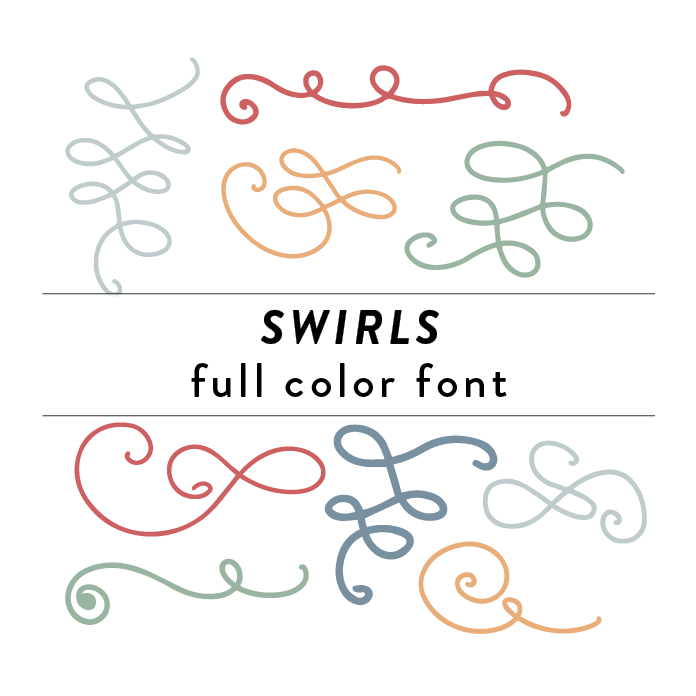
Swirls Full Color Font is a decorative font design featuring monoline curved line shapes in vibrant colors. This unique font style adds a whimsical and artistic touch to any project.